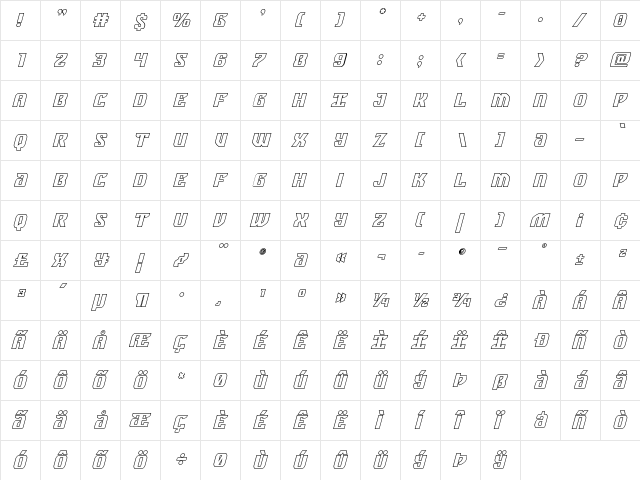
Federal Blue Outline Italic Outline Italic
Design Context for Federal Blue Outline Italic Typeface
Federal Blue Outline Italic is built around its visual character rather than neutral utility — its distinctive forms are designed to make an impression at display sizes. The slanted form adds forward momentum and visual energy.
Font Pairing: Pair with a clean neutral sans-serif for body copy to let Federal Blue Outline Italic's character lead without overwhelming the composition.
Pro Tip: Treat Federal Blue Outline Italic as the centrepiece of your typographic hierarchy. One strong heading set in a decorative face can carry an entire layout.